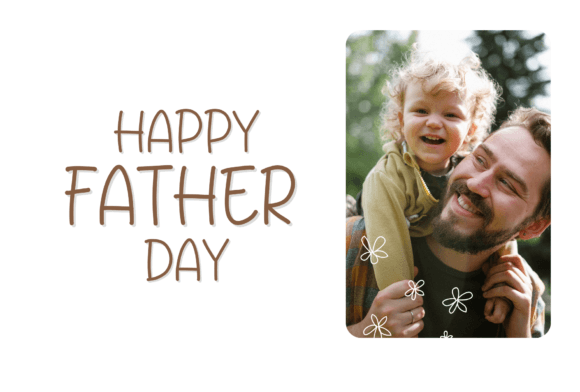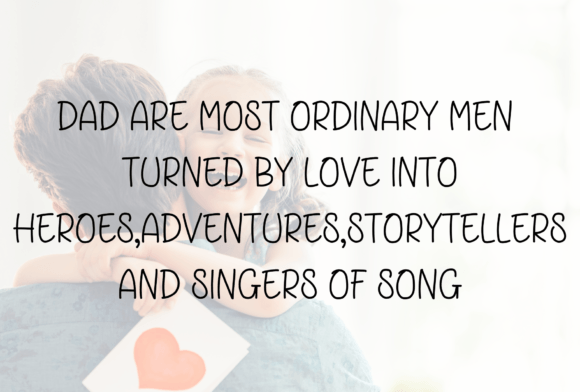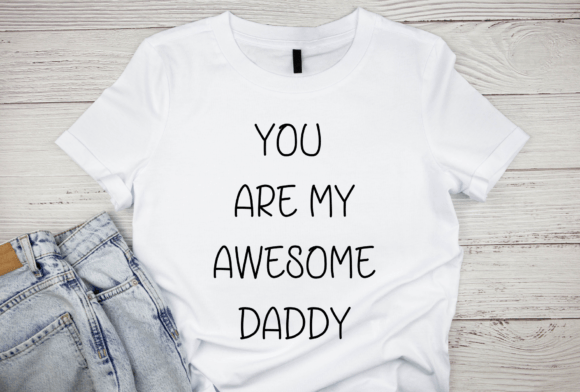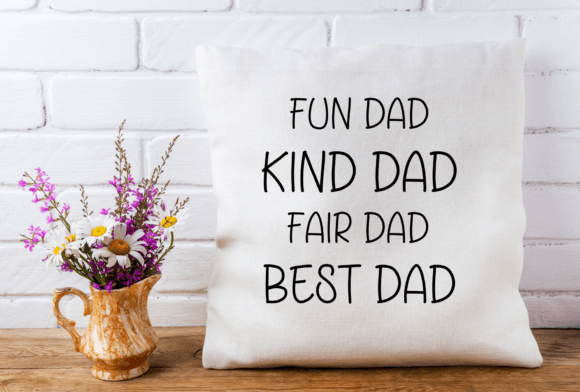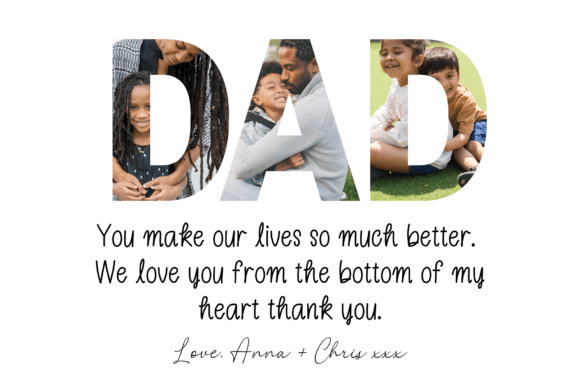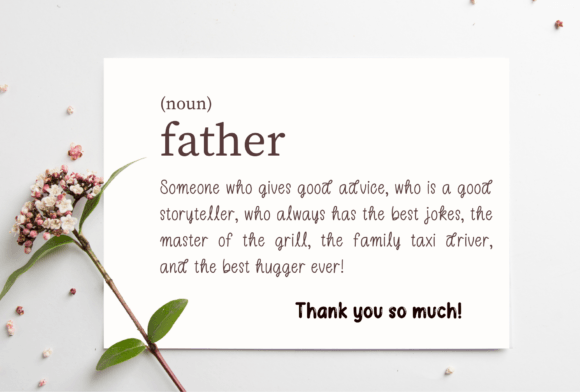
Introducing Daddy Font: Adding a Touch of Whimsy to Your Designs
In the world of design, fonts play a crucial role in conveying emotions and setting the tone for a project. If you’re looking for a font that can add a dash of delight and personality to your creations, look no further than Daddy Font. This charming and whimsical handwritten font is perfect for designers and crafters who want to infuse their work with a touch of playfulness and style.
The Perfect Choice for Greeting Cards and More
Daddy Font is specifically designed to make your greeting cards stand out from the rest. Its unique and whimsical charm can turn an ordinary card into an extraordinary one, making it feel more special and personalized. But the uses of Daddy Font don’t stop there. You can also use it to add a personal vibe to everyday items like:
- Mugs: Add a touch of whimsy to your morning coffee routine with a customized mug featuring Daddy Font.
- T-shirts: Create fun and playful designs for t-shirts that are perfect for casual wear.
- Stickers: Use Daddy Font to create stickers that are both functional and adorable.
- Keychains: Add a personal touch to keychains with a customized tag or charm featuring Daddy Font.
- Planners: Make your planner or journal more visually appealing with Daddy Font.
Effortlessly Blend Playfulness and Style
One of the best things about Daddy Font is its ability to blend playfulness and style effortlessly. This font is perfect for designers and crafters who want to add a creative spin to their work without sacrificing professionalism. With Daddy Font, you can:
- Create eye-catching designs that grab attention.
- Add a personal touch to your work.
- Experiment with different design styles and themes.
Endless Possibilities
Daddy Font is more than just a font – it’s a tool that opens up endless possibilities for designers and crafters. With this font, you can:
- Create customized designs for clients or personal projects.
- Experiment with different design styles and themes.
- Add a unique touch to your work.
Key Features of Daddy Font
So, what makes Daddy Font so special? Here are some of its key features:
- Charming and whimsical handwritten design.
- Perfect for greeting cards, mugs, t-shirts, stickers, keychains, and more.
- Effortlessly blends playfulness and style.
- Endless possibilities for customization and experimentation.
Get Creative with Daddy Font
If you’re ready to add a touch of whimsy and personality to your designs, download Daddy Font today. With its charming and whimsical design, this font is sure to become a staple in your design toolkit. Whether you’re a designer, crafter, or DIY enthusiast, Daddy Font is the perfect choice for anyone looking to add a creative spin to their work.
| Font Name | Daddy Font |
| Author | Bassoonartwork |
In conclusion, Daddy Font is a charming and whimsical handwritten font that’s perfect for designers and crafters who want to add a touch of personality to their work. With its endless possibilities and effortless blend of playfulness and style, this font is sure to become a favorite among creatives. So why wait? Download Daddy Font today and start creating designs that are truly one-of-a-kind.